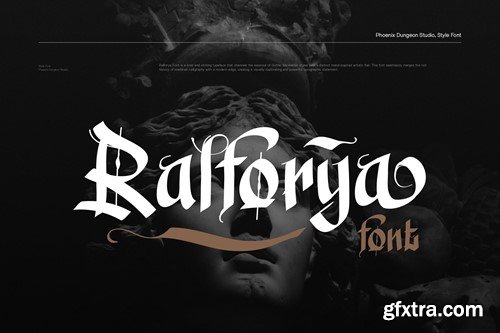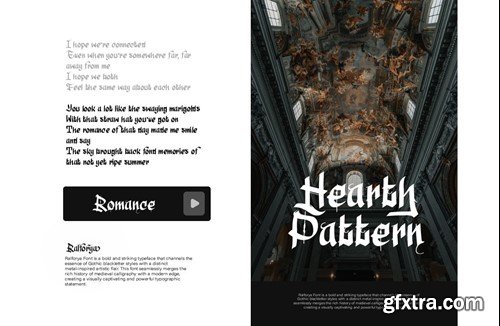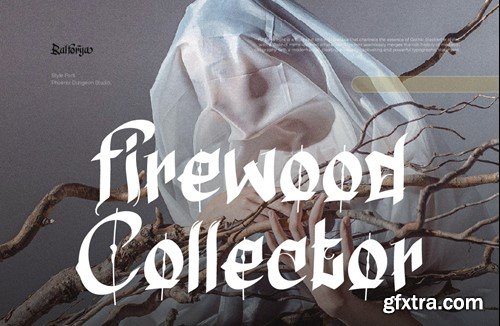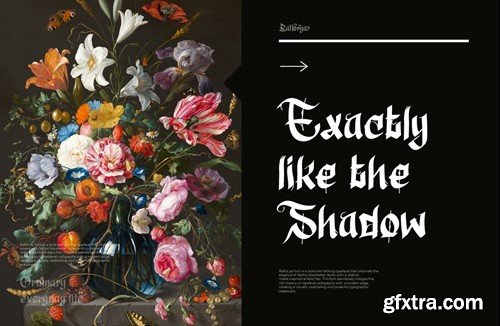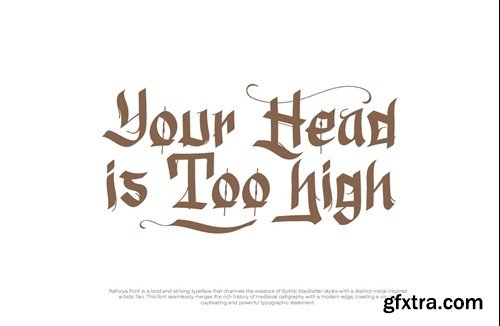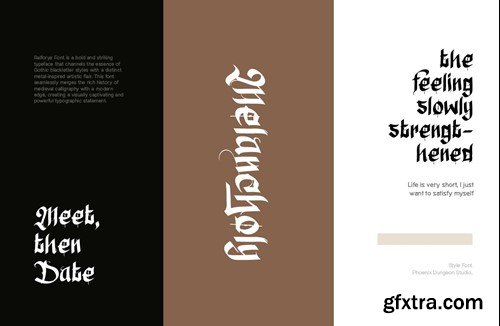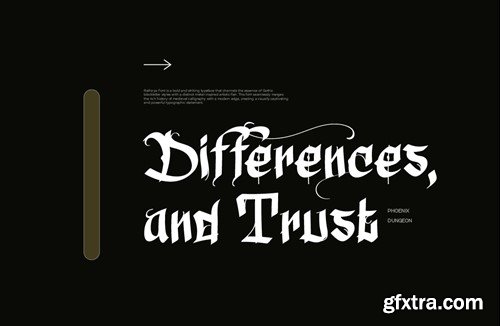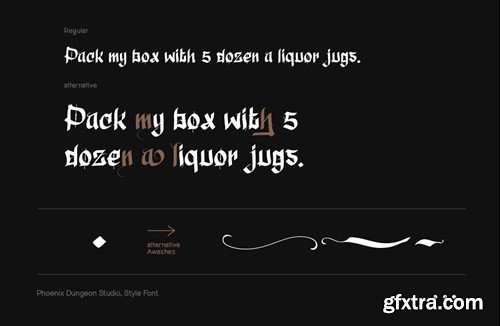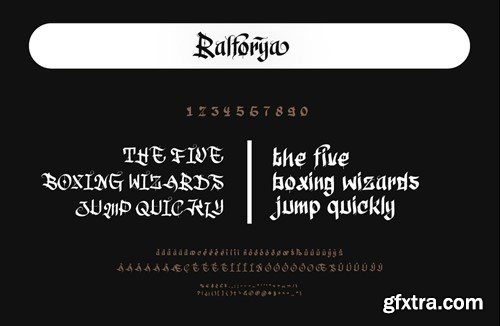
Ralforya Font
Ralforya Font is a bold and striking typeface that channels the essence of Gothic black letter styles with a distinct metal-inspired artistic flair. This font seamlessly merges the rich history of medieval calligraphy with a modern edge, creating a visually captivating and powerful typographic statement. What’s in the package : Thank you